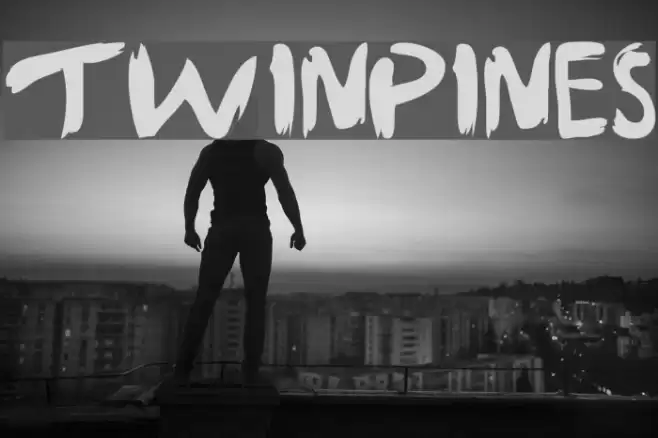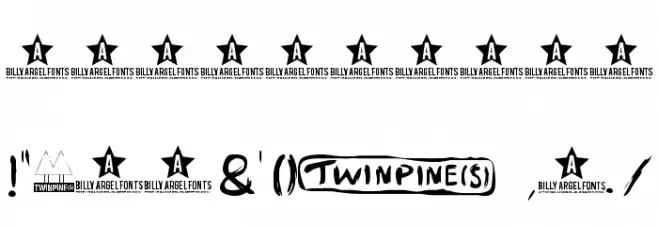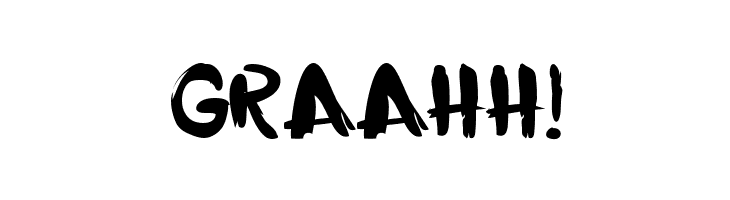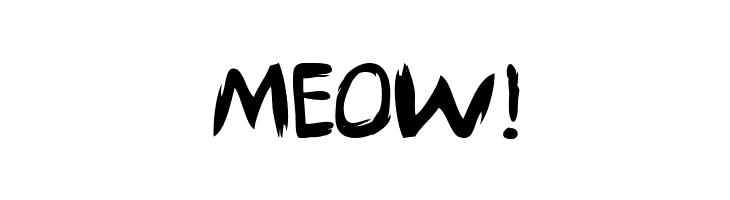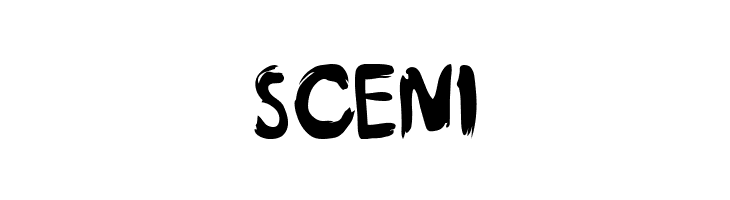
TWINPINES Font
TWINPINES Description
This font features a bold, brush-like style with dynamic strokes that give it an energetic and expressive appearance. The characters are slightly irregular, adding a handcrafted feel, while maintaining readability. The uppercase and lowercase letters are consistent in their artistic flair, with the uppercase letters being particularly striking. The numbers and special characters follow the same design ethos, making them suitable for creative and eye-catching designs. This font's unique style makes it ideal for projects that require a personal touch or a bold statement.
A bold, brush-style font with dynamic, handcrafted strokes from Uncategorized fonts.
- Proposed Projects: Ideal for posters, branding, album covers, and artistic projects requiring a bold statement.